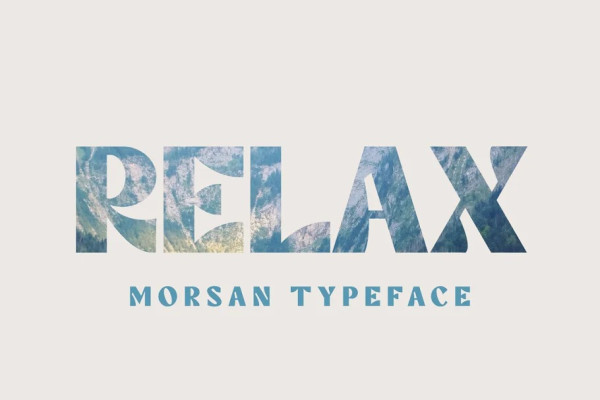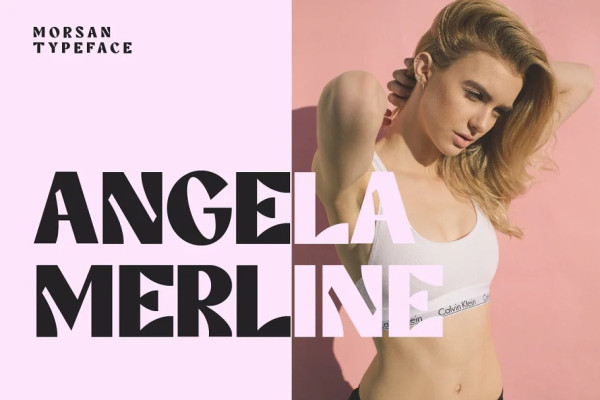
Morsan Display Font
Morsan Display Font is a psychedelic-inspired typeface that exudes retro charm, boldness, and playful vibes. Perfect for adding a dose of groovy excitement to any creative endeavor!